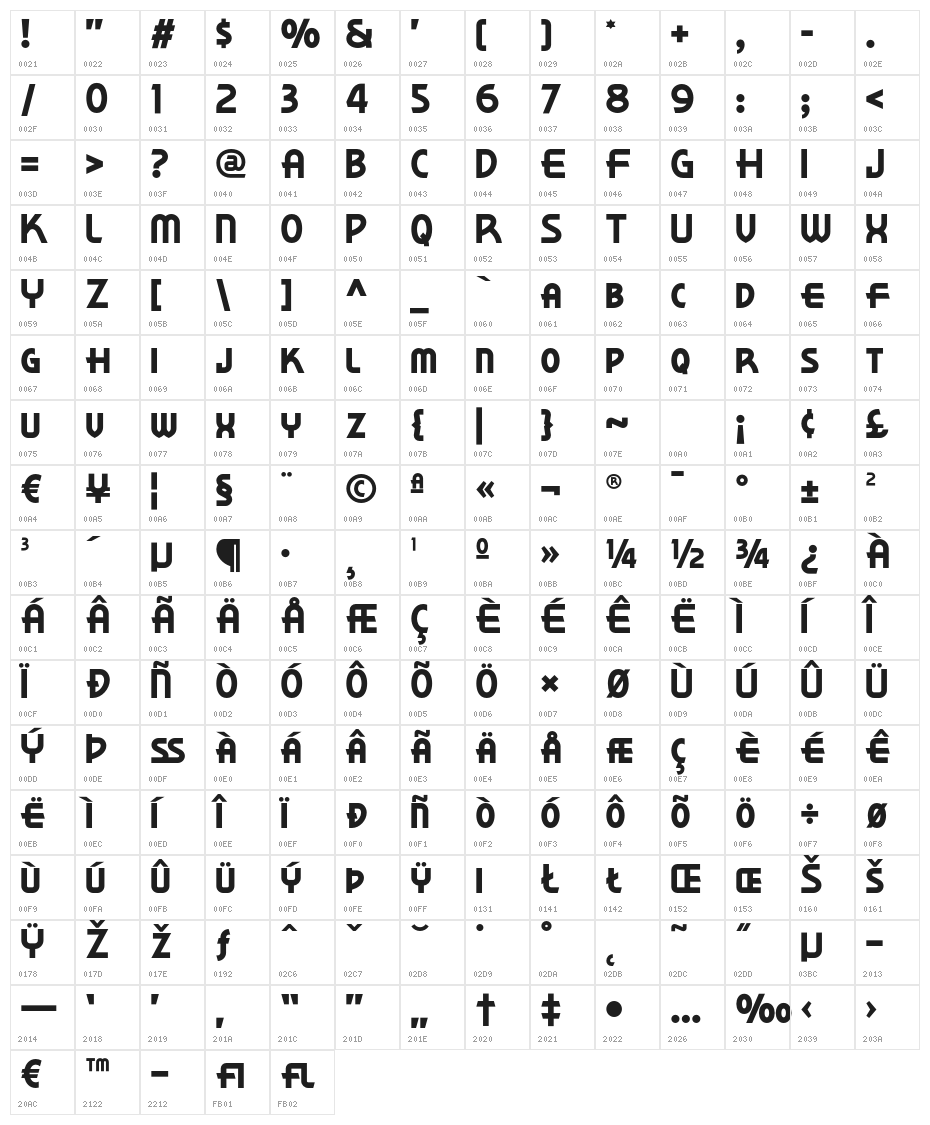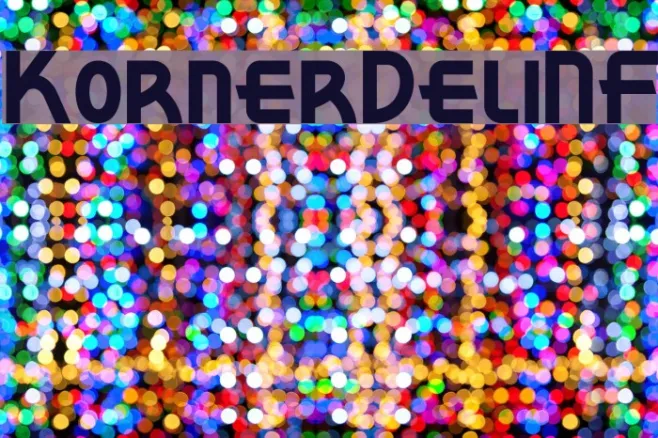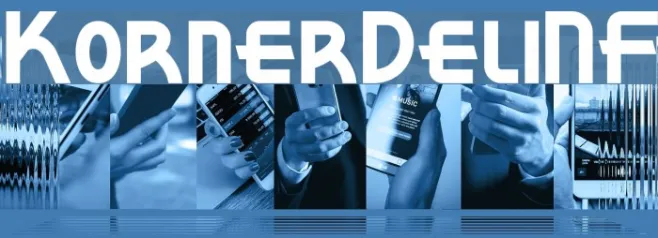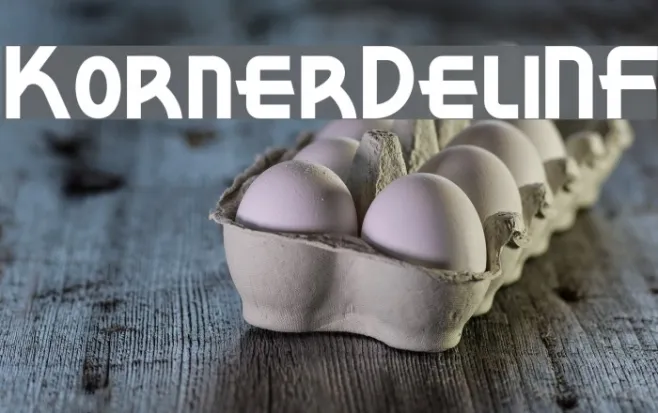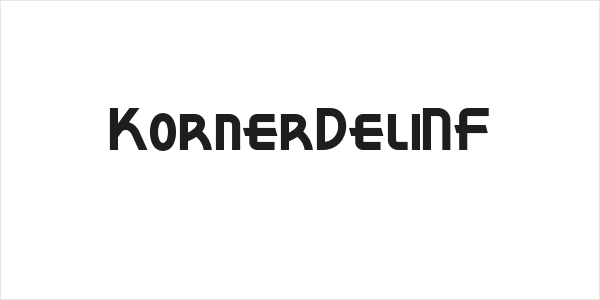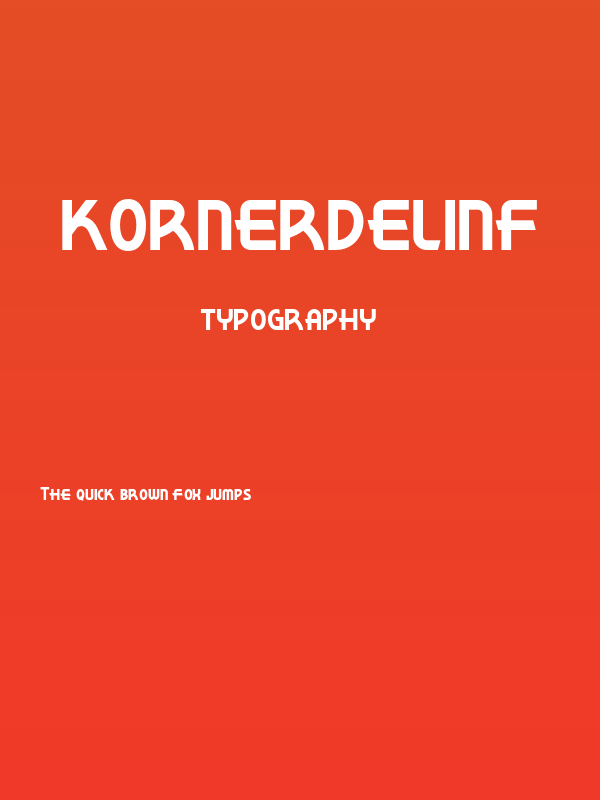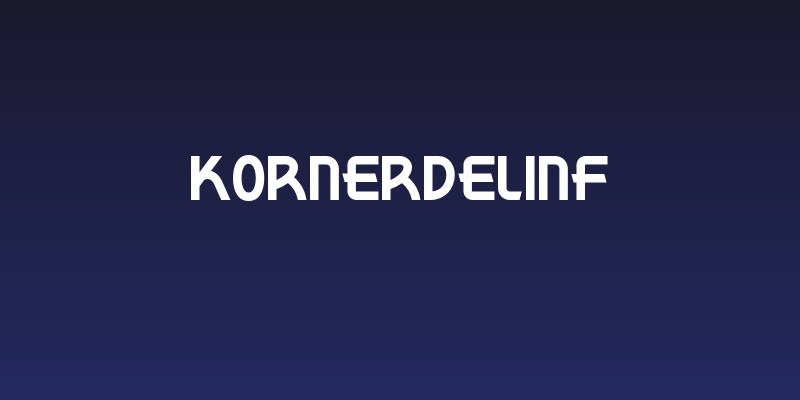
KornerDeliNF Font
KornerDeliNF Description
This font features a bold and geometric design with a strong presence. The characters are constructed with thick, uniform strokes, giving it a robust and impactful appearance. The angular and blocky shapes create a sense of modernity and strength, making it suitable for attention-grabbing headlines and titles. The consistent stroke width throughout the characters ensures a cohesive look, while the unique design elements add a touch of distinctiveness. The font includes a full set of uppercase and lowercase letters, numbers, and a variety of special characters, providing versatility for different design needs.
| Proposed Projects | Ideal for branding, posters, signage, and any project requiring a bold, modern typeface. |